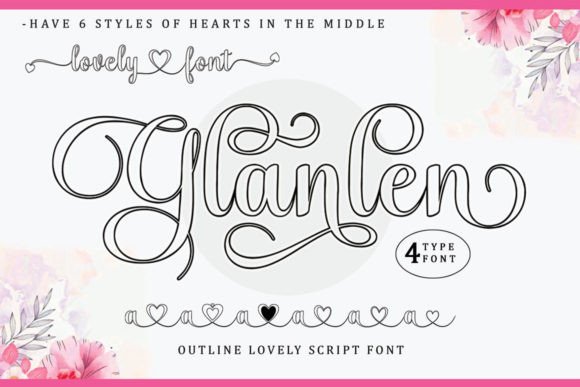
Unleash the allure of your designs with Glanlen Outline, the captivating script font that will teleport your creative visions to new heights of beauty and elegance. This meticulously crafted masterpiece, brought to life by the talented Reyna Studio, stands out with its sleek, clean lines, a touch of femininity, a dash of sensuality, and an undeniable dose of glamour, making it the perfect choice for injecting a modern touch into your projects.
The Glanlen Outline's graceful letter connections and inherent readability make it a versatile wonder, perfectly suited for a wide range of formal applications. Envision your invitations, labels, restaurant menus, and logos adorned with this exquisite font, exuding sophistication and charm. Let Glanlen Outline elevate your fashion and makeup designs, adding a touch of elegance, or let it flow effortlessly through your stationery, novels, magazines, and books, captivating readers with its timeless beauty.
The extraordinary applications don't stop there. Glanlen Outline shines in the realm of wedding invitations and greeting cards, adding a touch of romance and personalization that will make your messages unforgettable. Packaging and labels adorned with this font exude a sense of luxury, while advertisements utilizing Glanlen Outline capture attention and leave a lasting impression.
With Glanlen Outline, the possibilities are endless. Its PUA-encoded nature grants you effortless access to a treasure trove of enchanting glyphs and ligatures, empowering you to unleash your creativity and craft designs that speak volumes. Embrace the allure of Glanlen Outline today and open the door to a world of creative possibilities that transcend the ordinary.